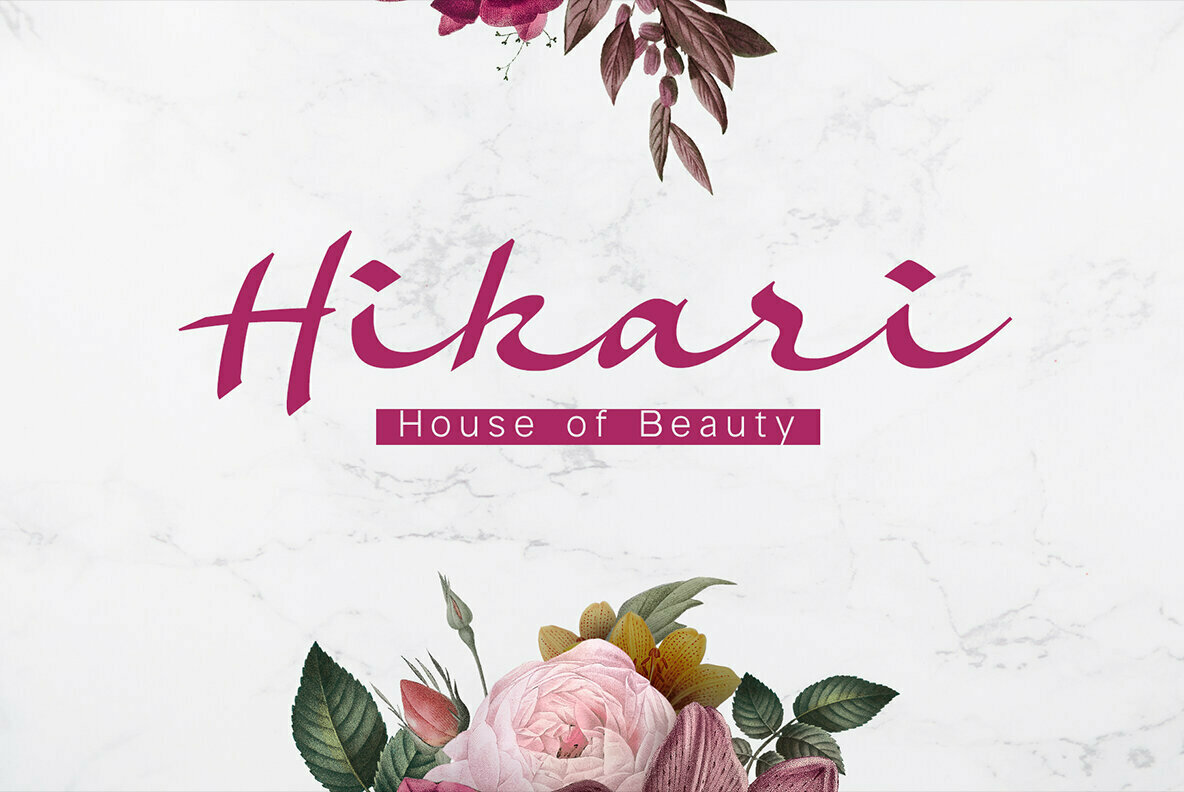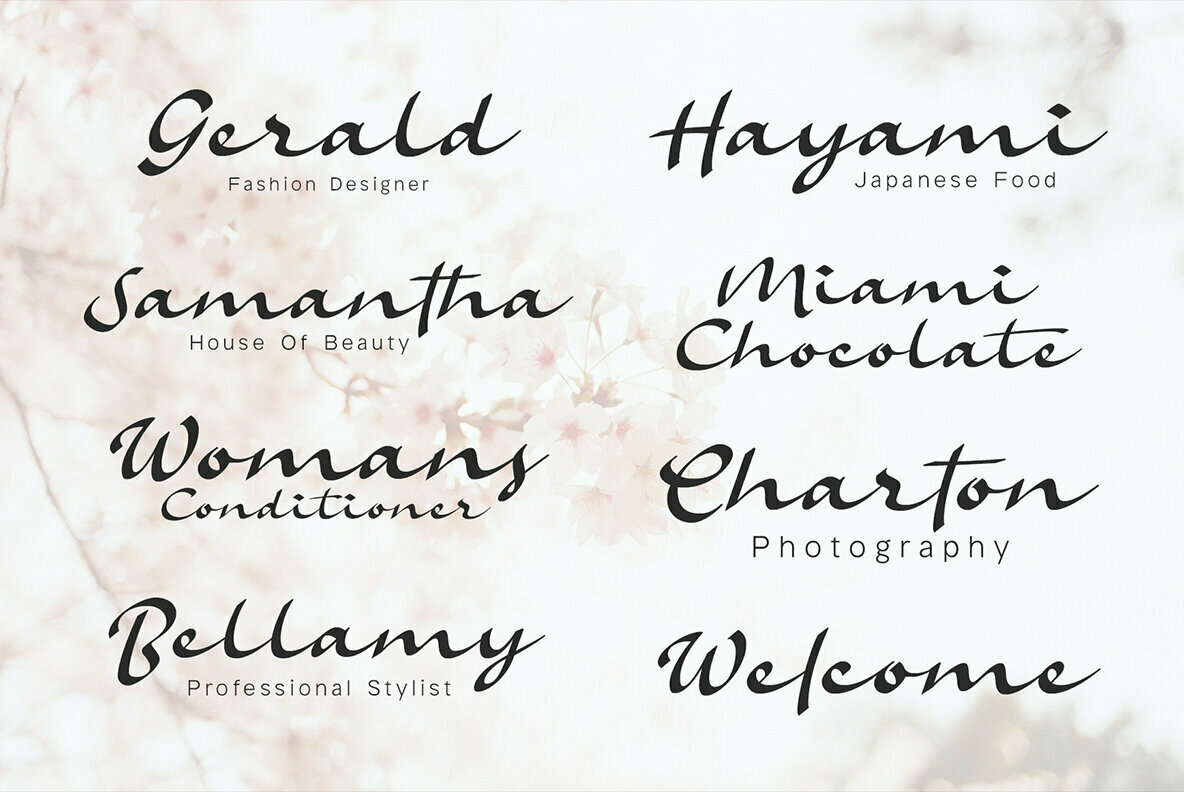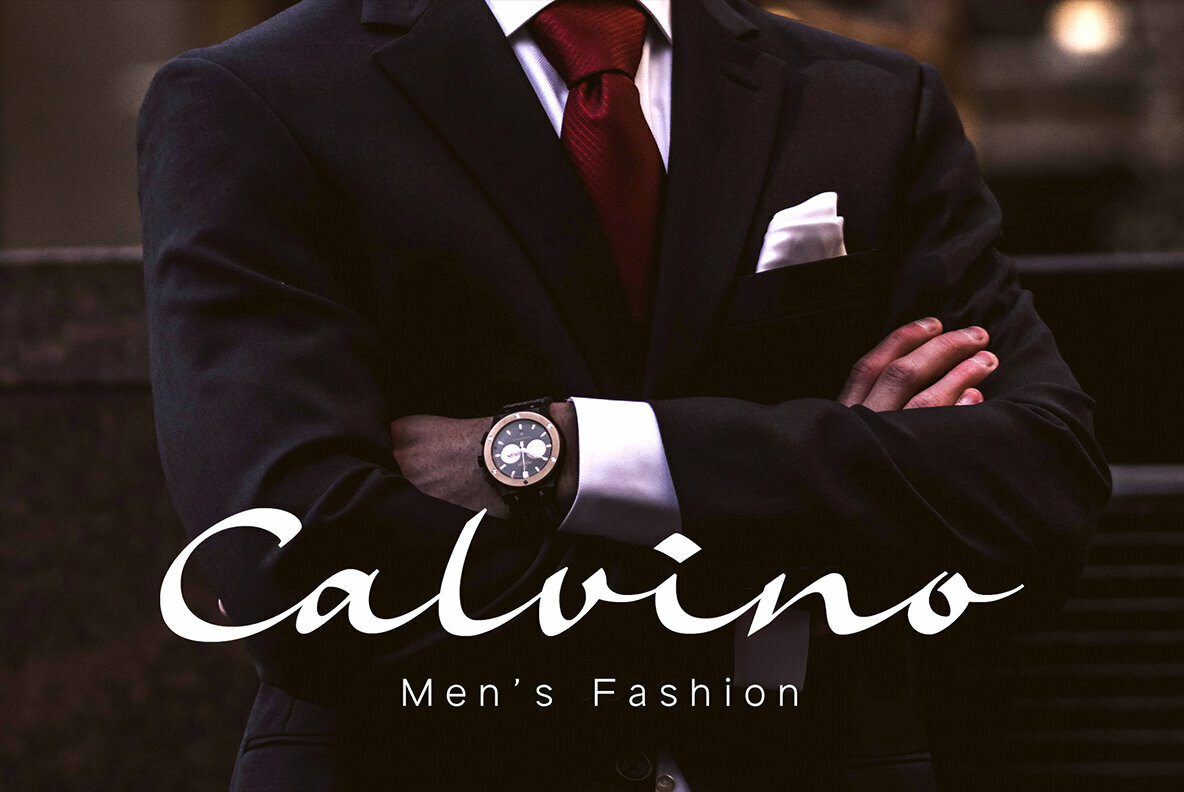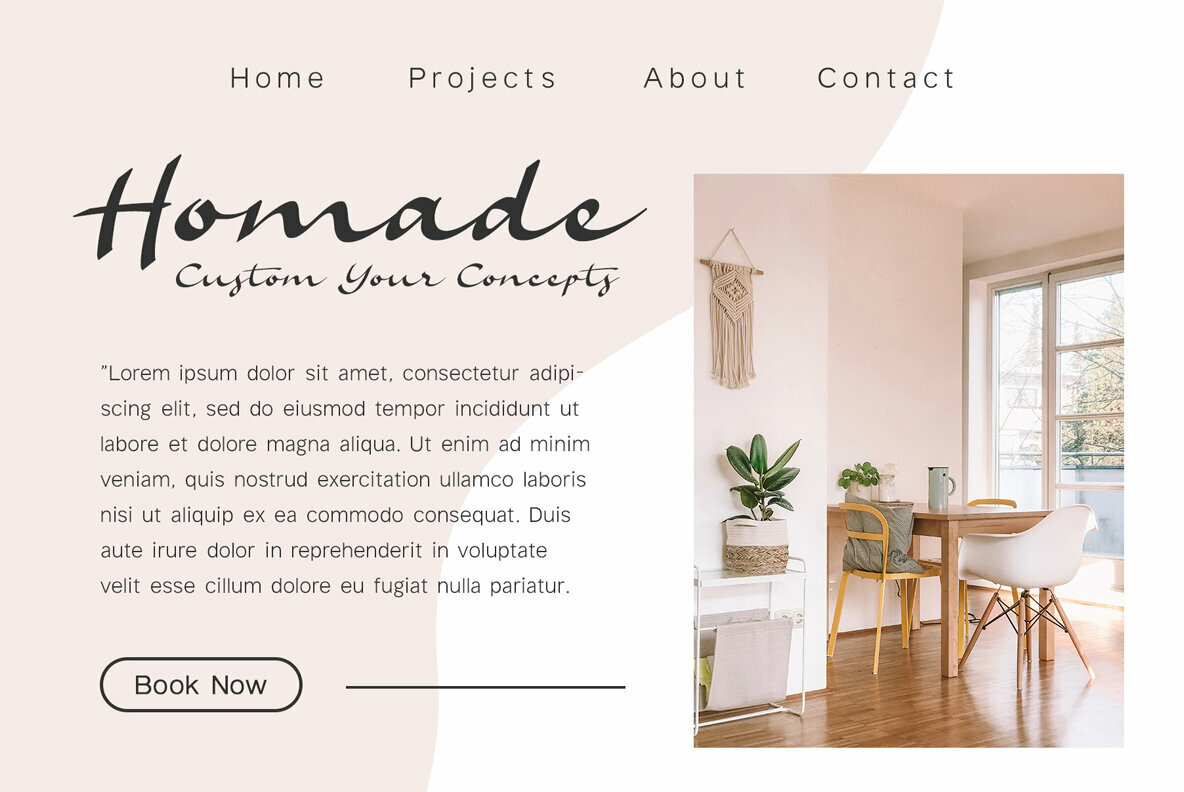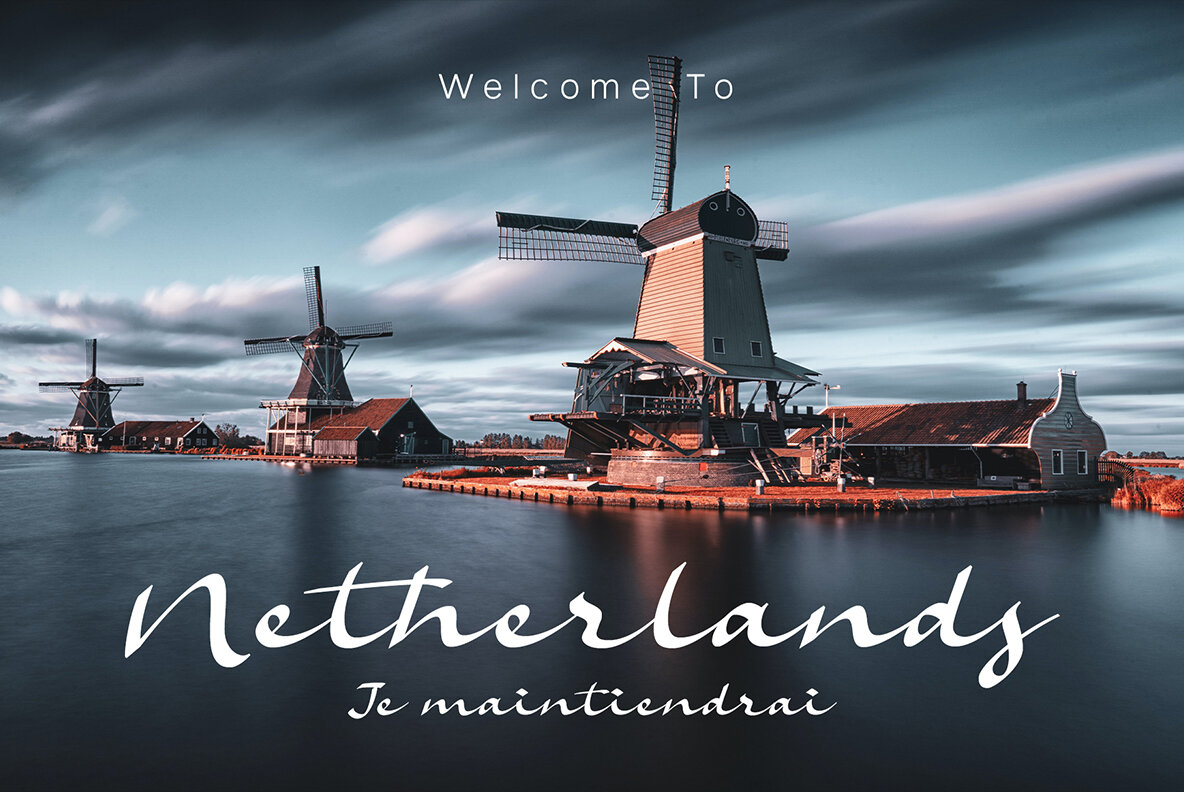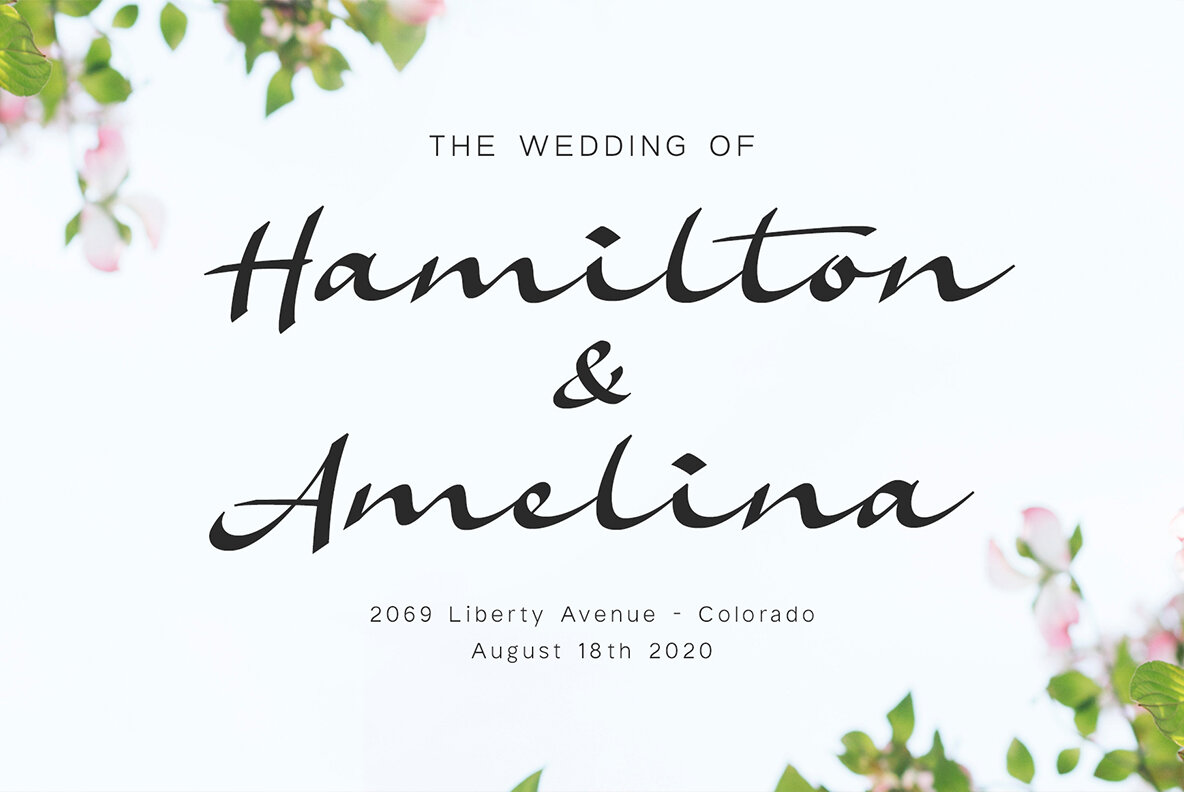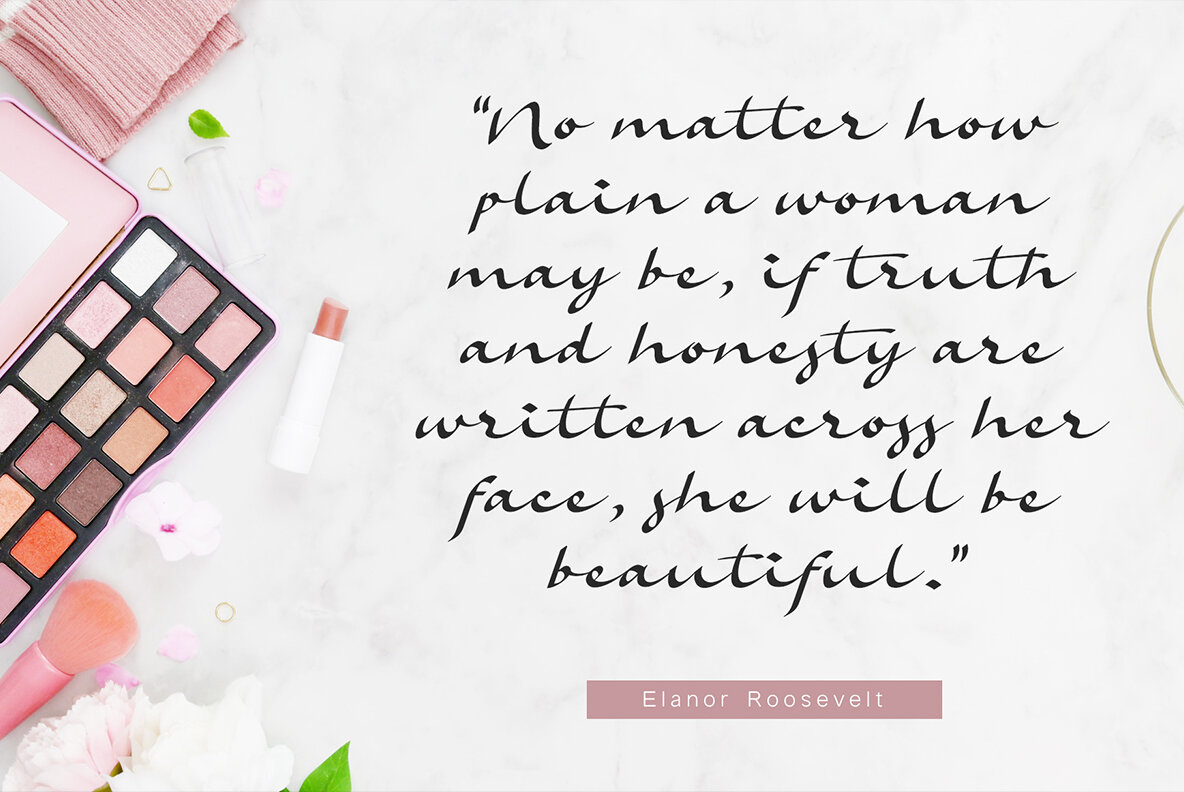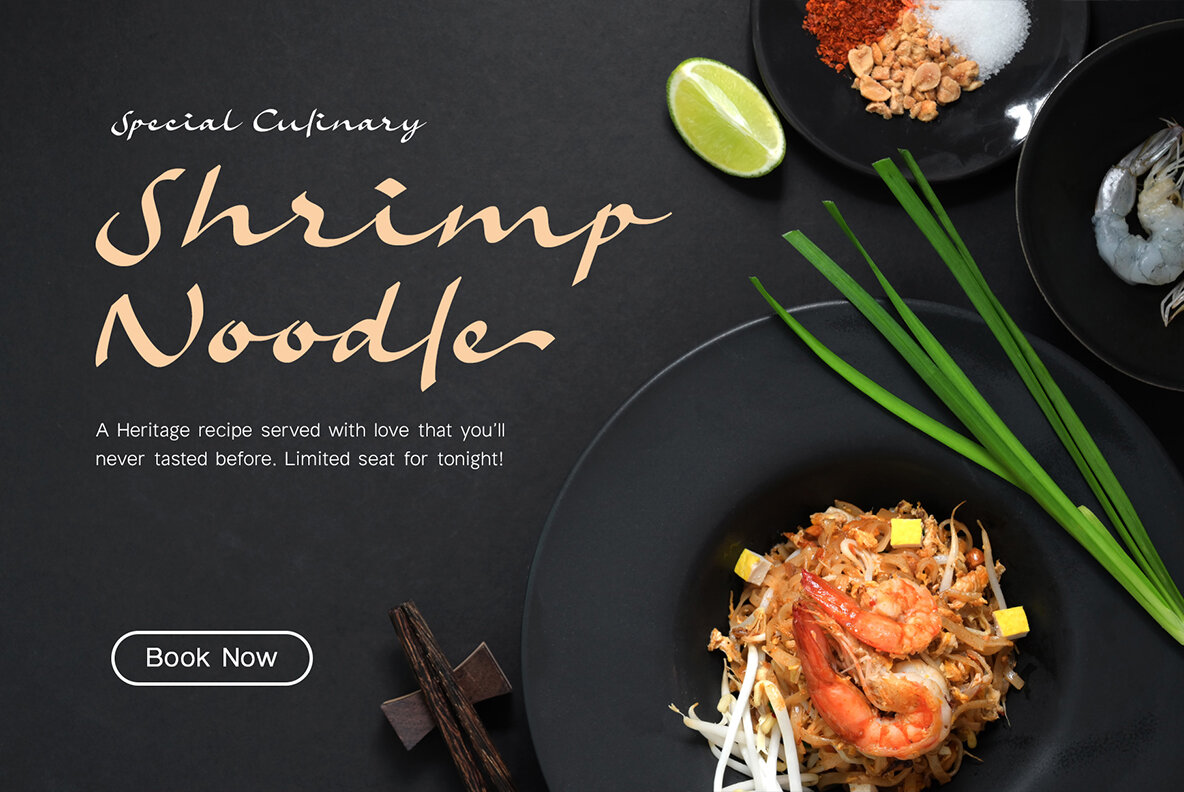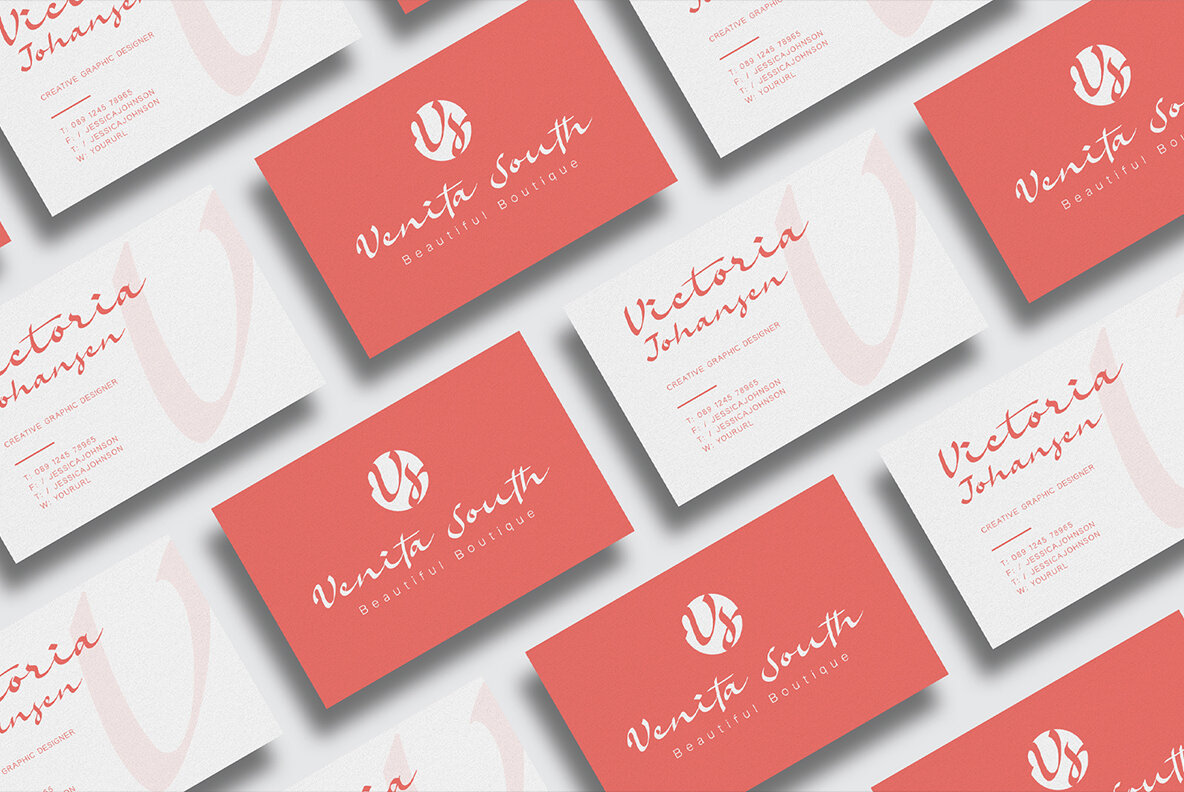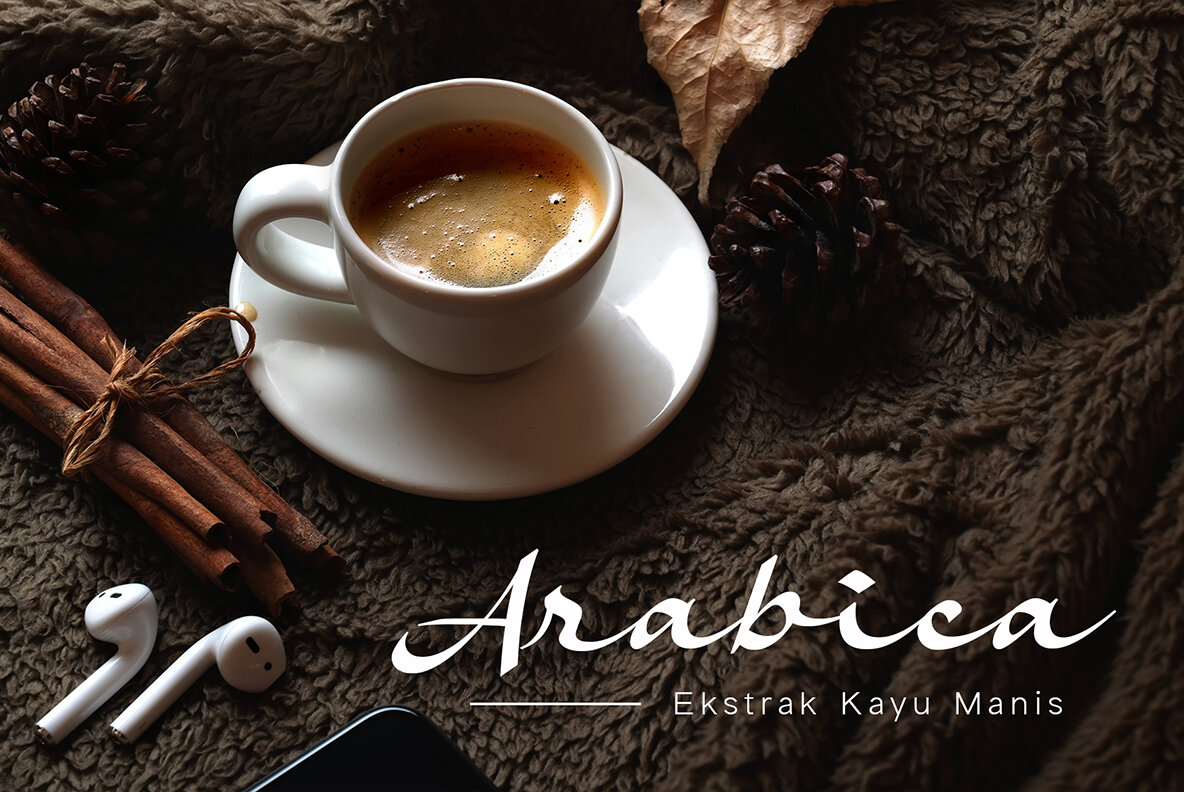
Amelina Font Duo
Embrace a harmonious blend of classic and contemporary design with the Amelina Font Duo. This pairing features the Amelina Script, a signature font inspired by traditional handwriting with a flat pen, along with Amelina Sans, a refined sans serif ideal for subheadlines and body text. The duo exudes elegance, making it versatile for various creative applications, from logotypes to magazine layouts.Amelina Font Duo: Signature Style Meets Clean Lines